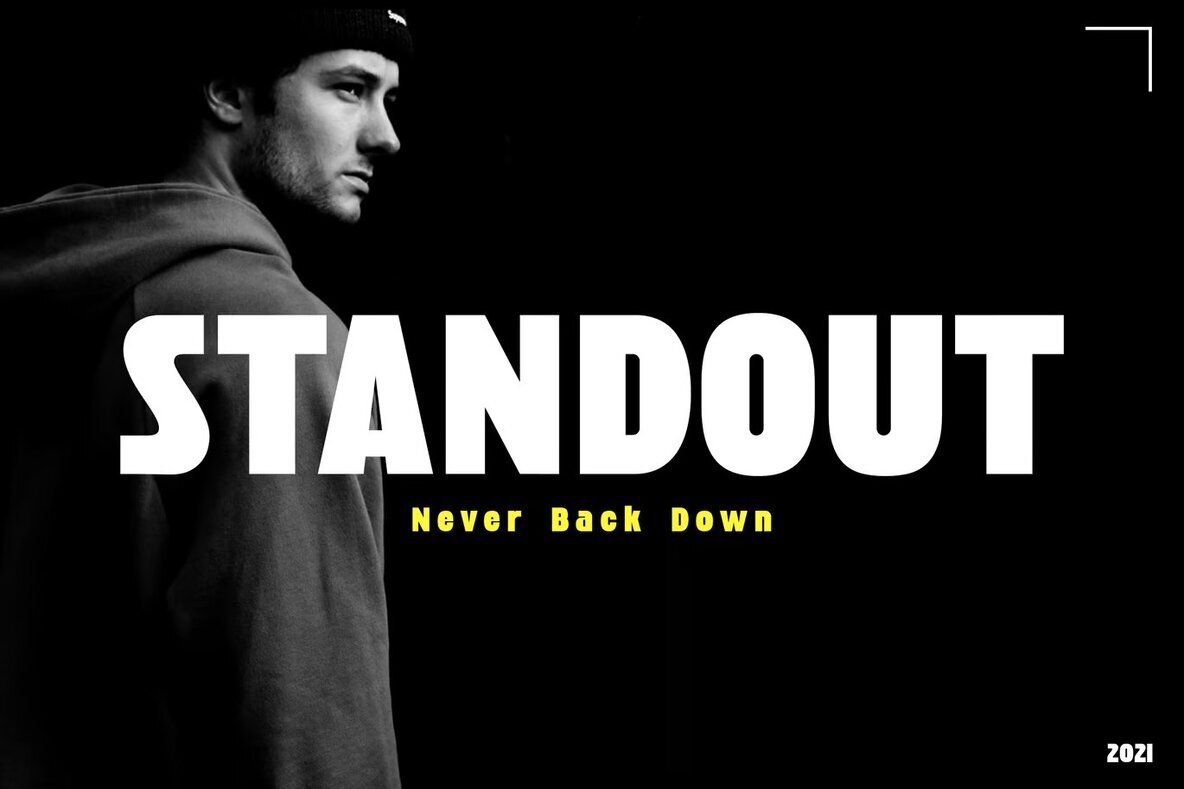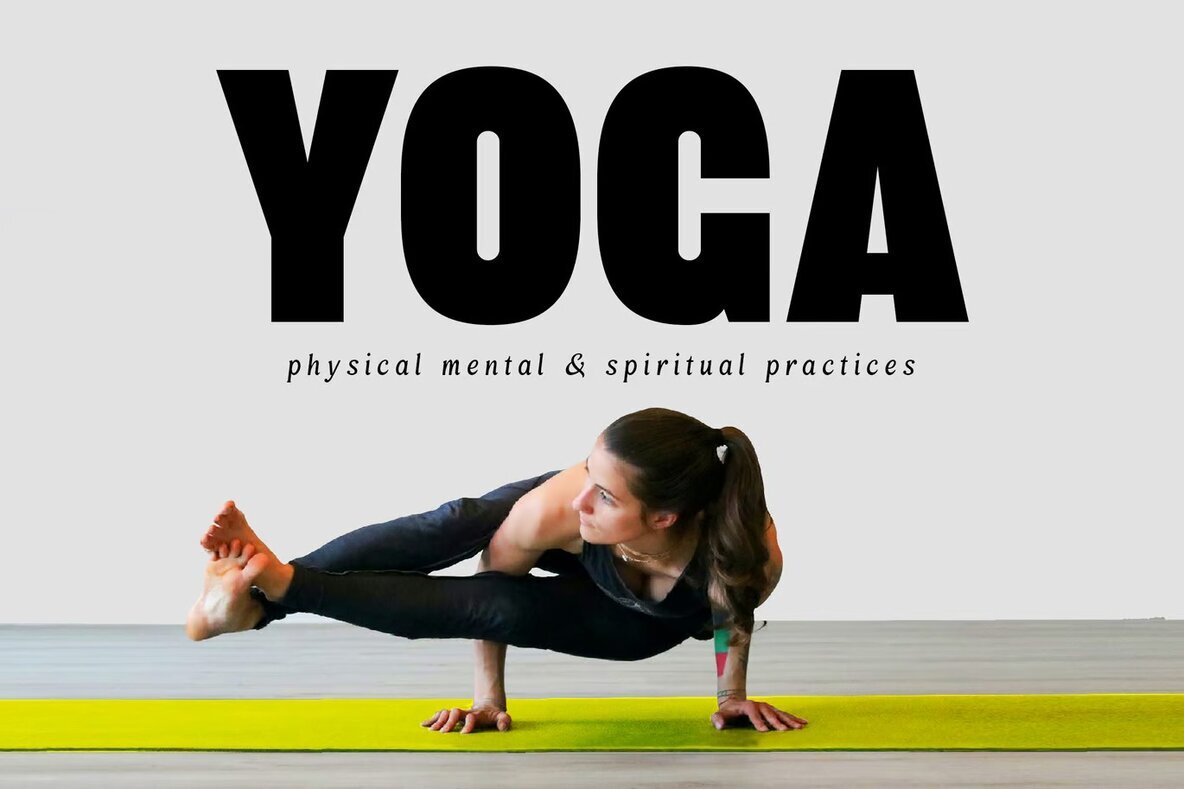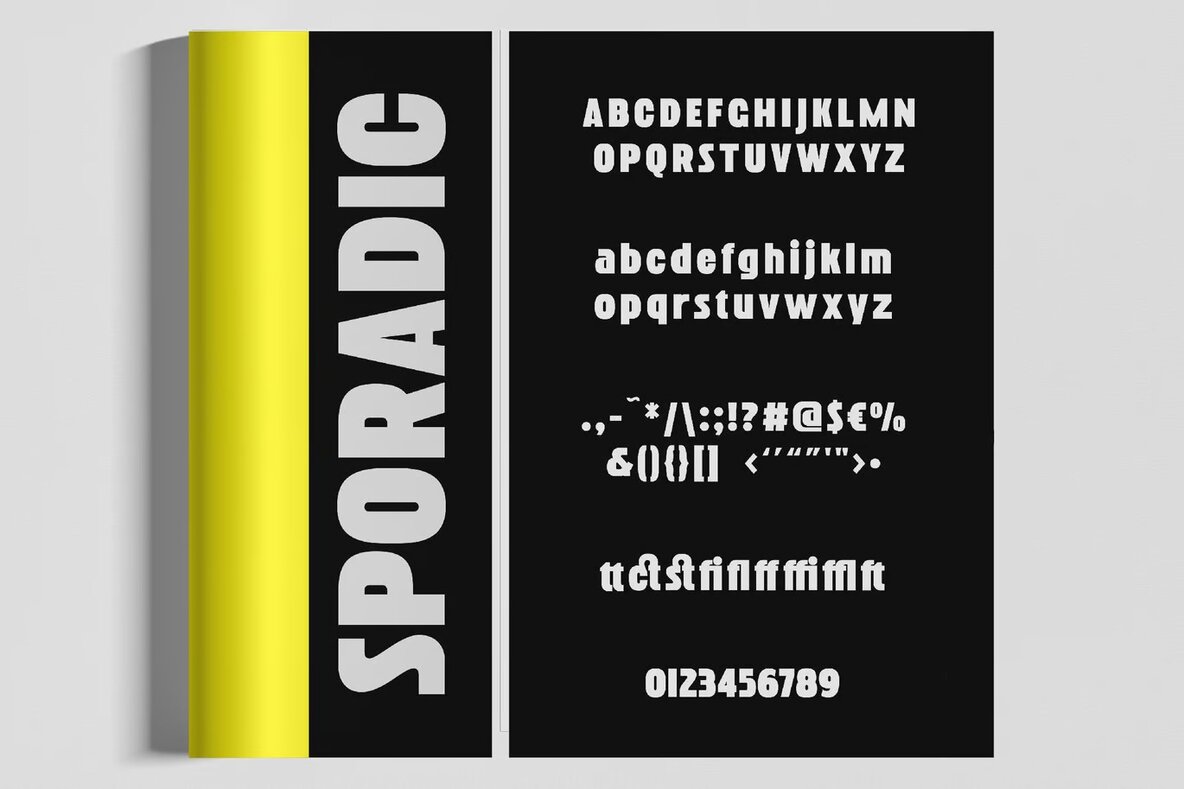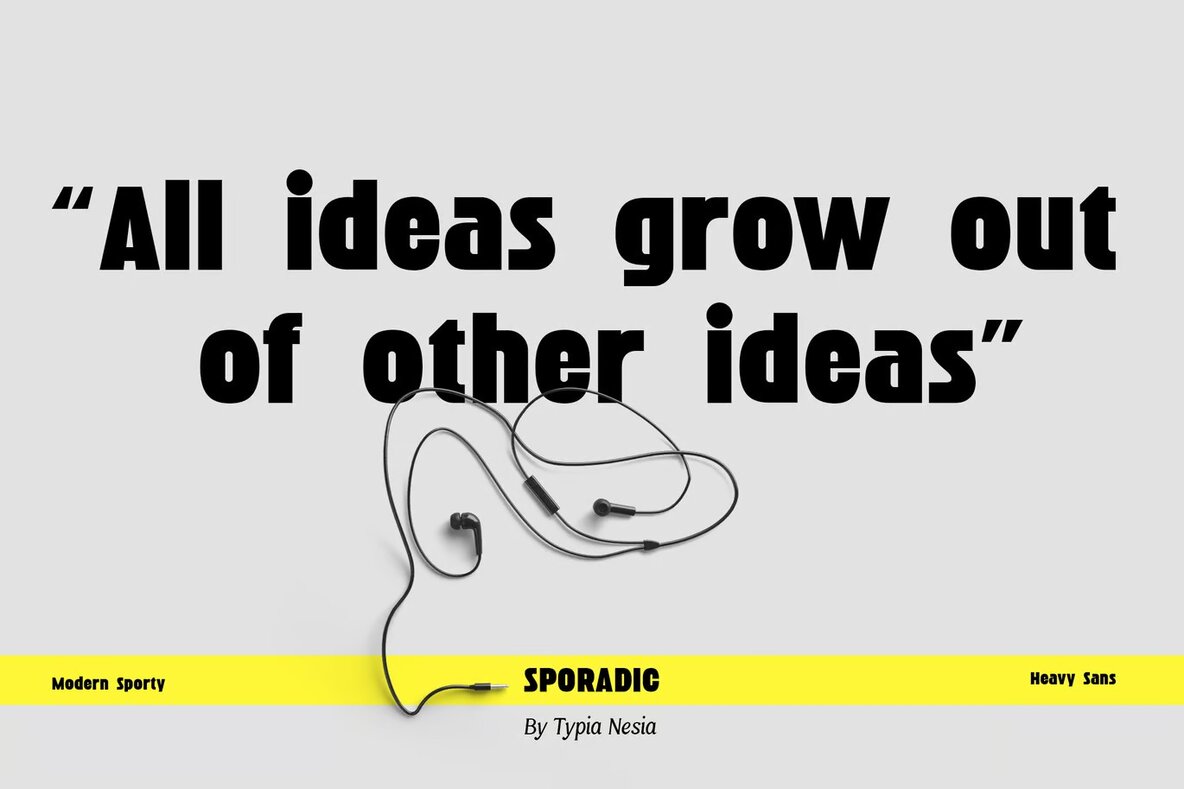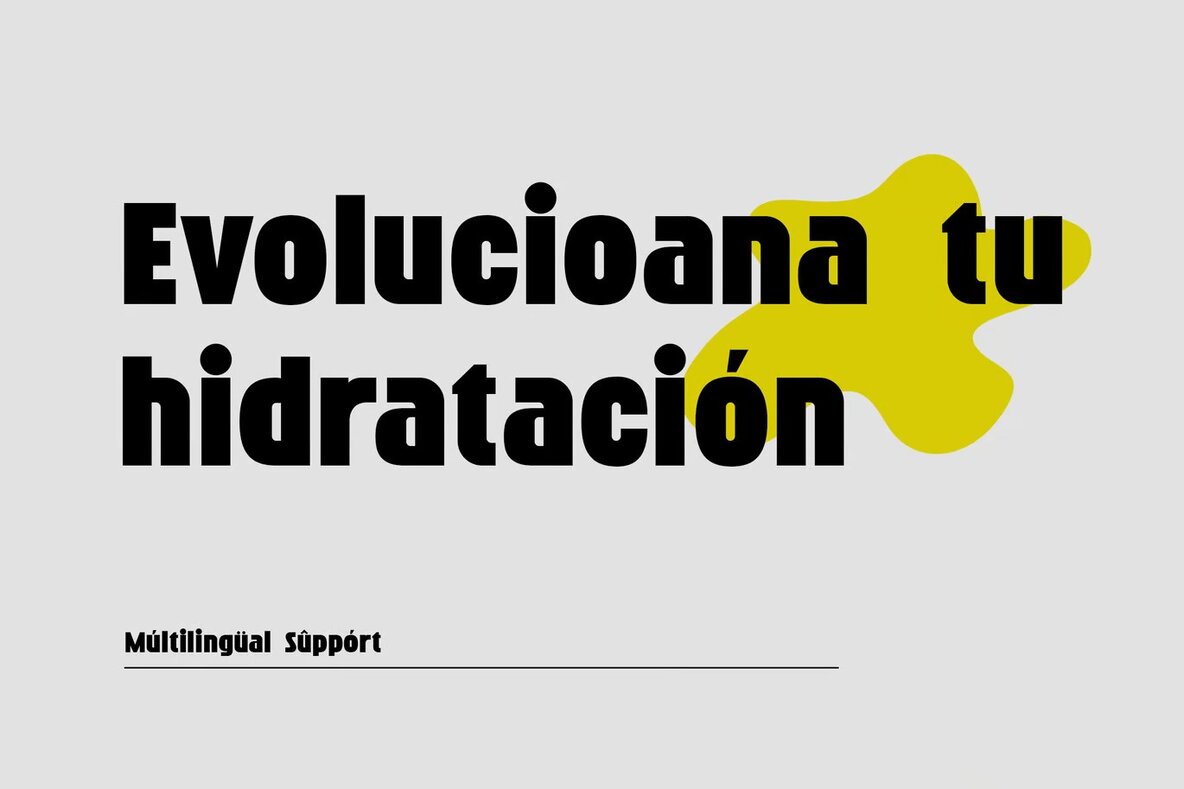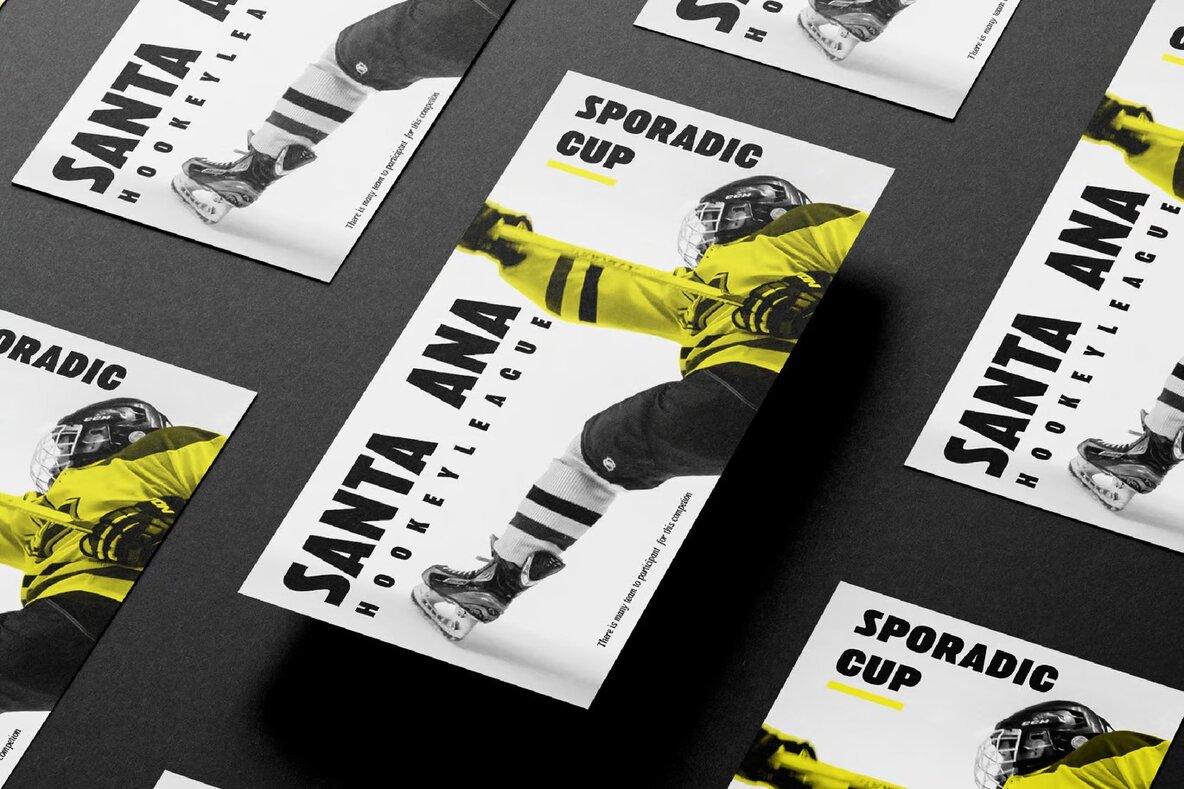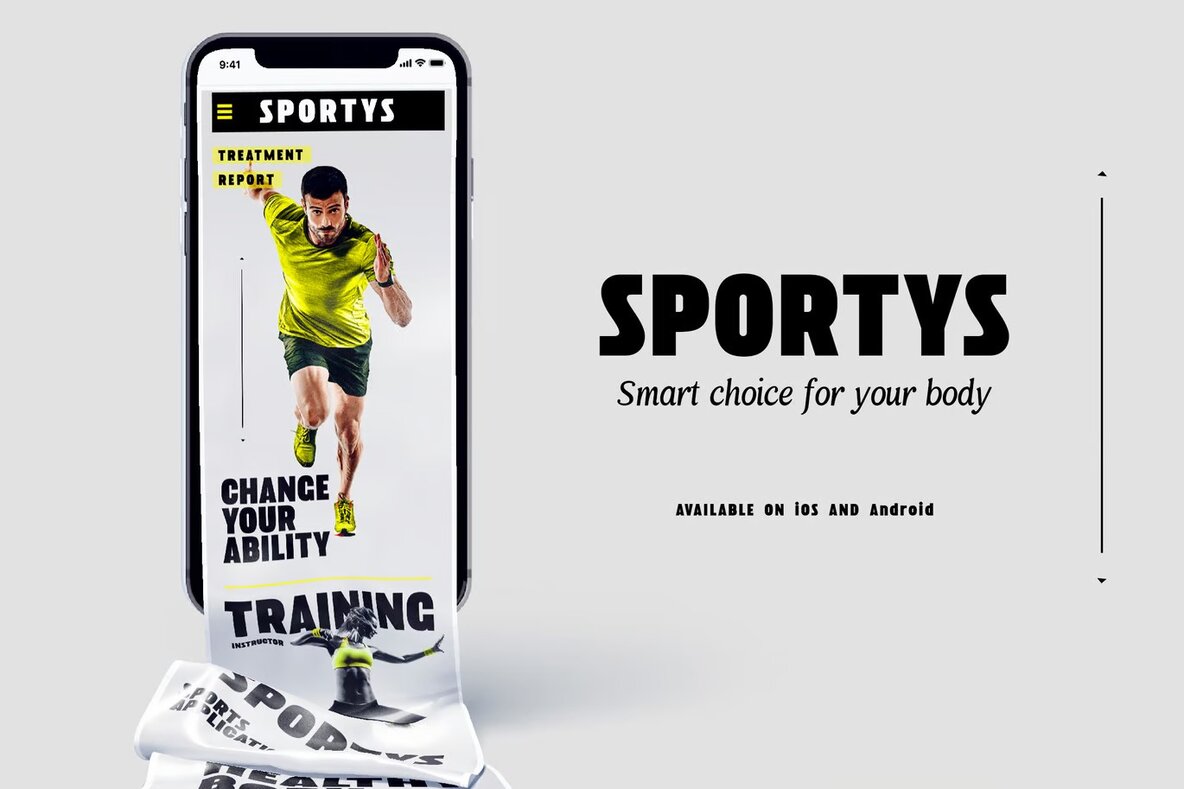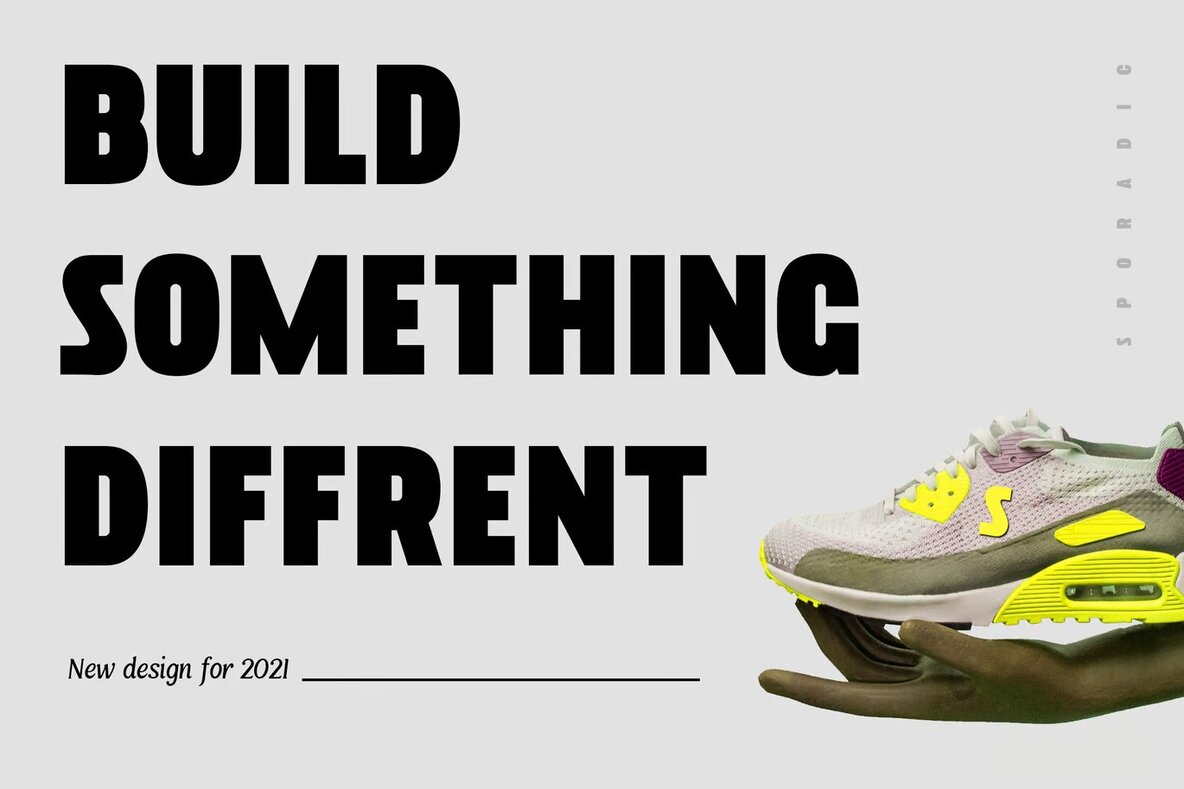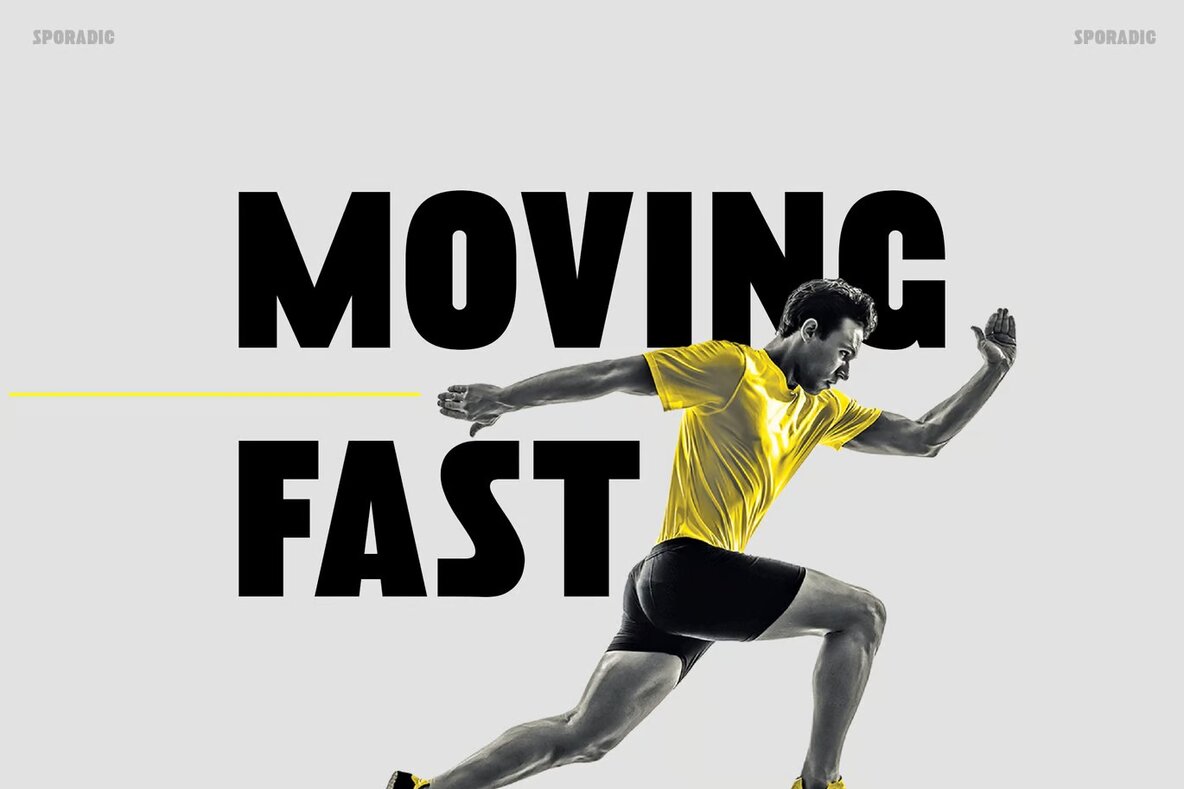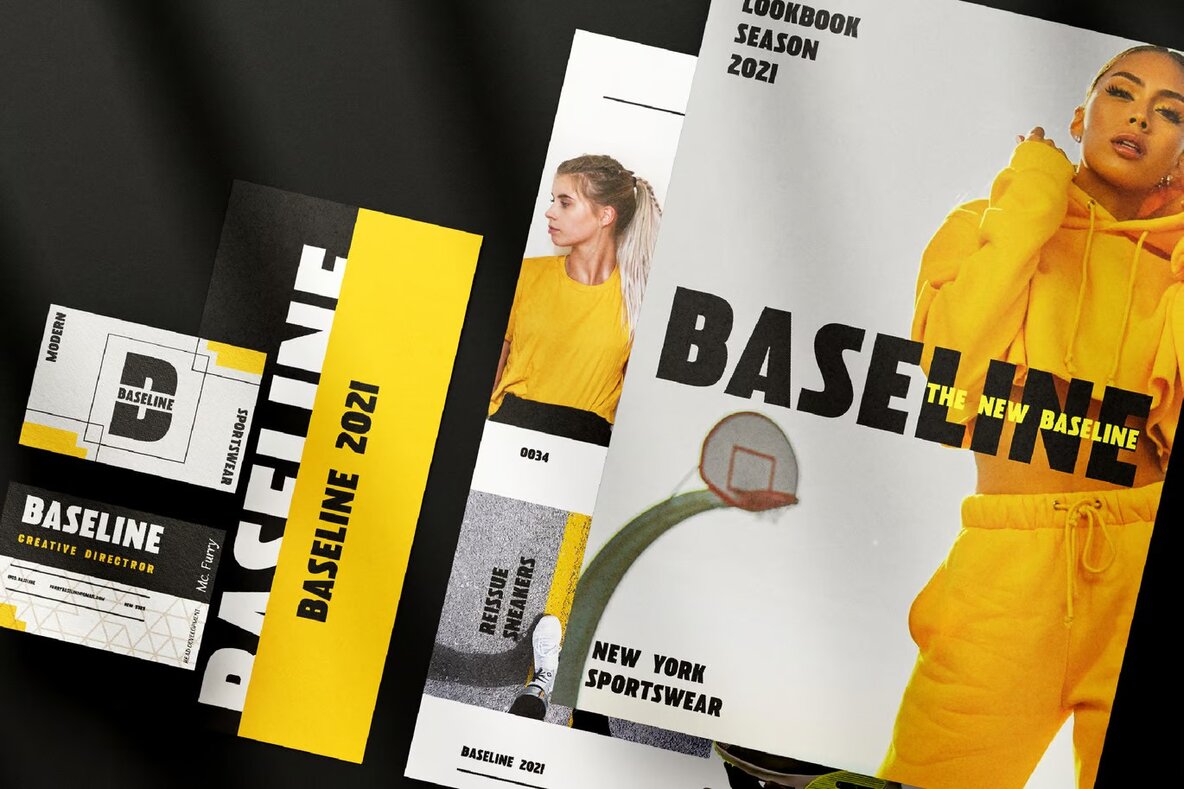
Sporadic Font
Sporadic
This sans-serif font features a modern and sleek design, perfect for a wide range of design projects. Its clean and minimalist appearance makes it ideal for corporate branding, digital interfaces, and web design. The font’s legibility and versatility also make it suitable for print materials, headings, and body text in editorial layouts. Use this font to convey a sense of professionalism and contemporary style in your designs.